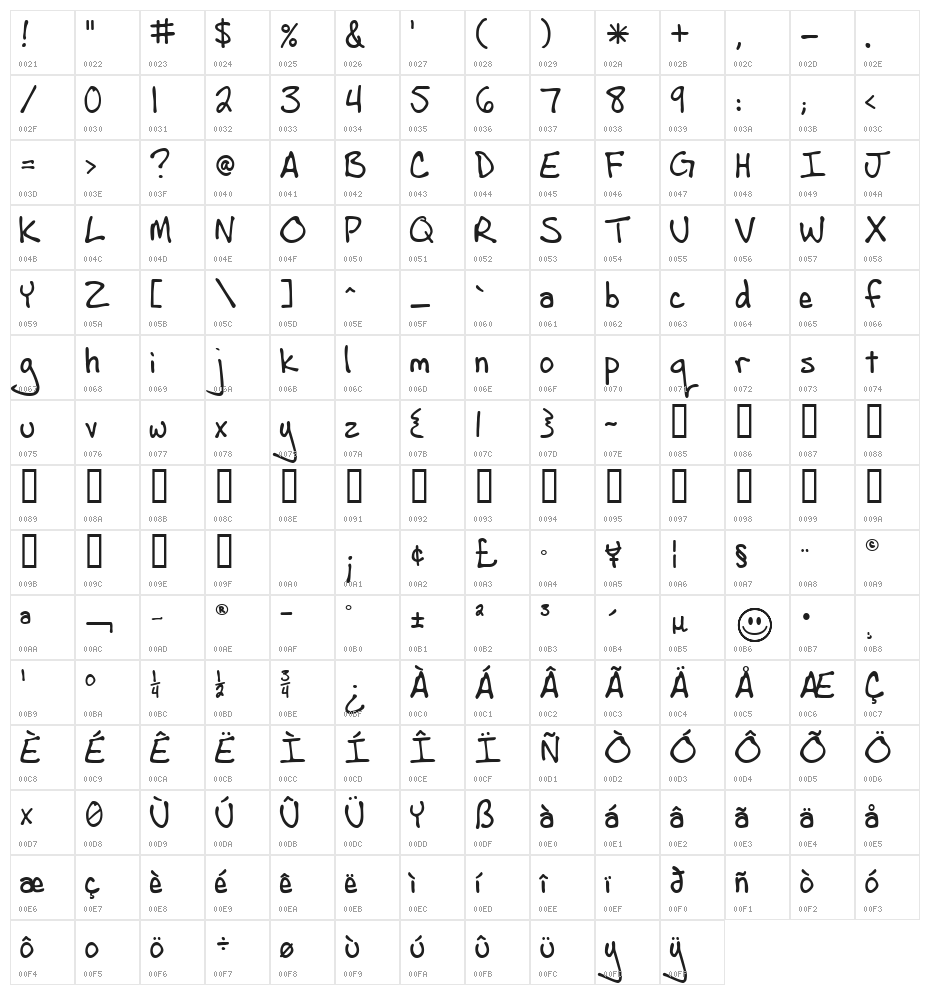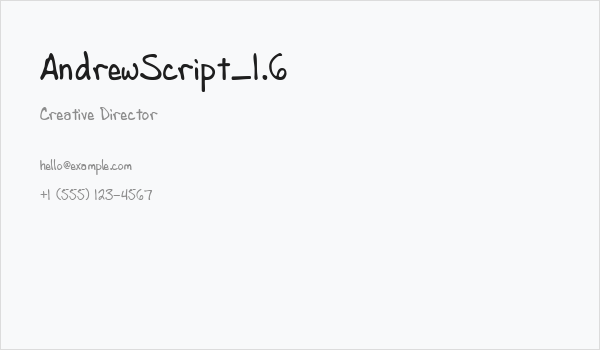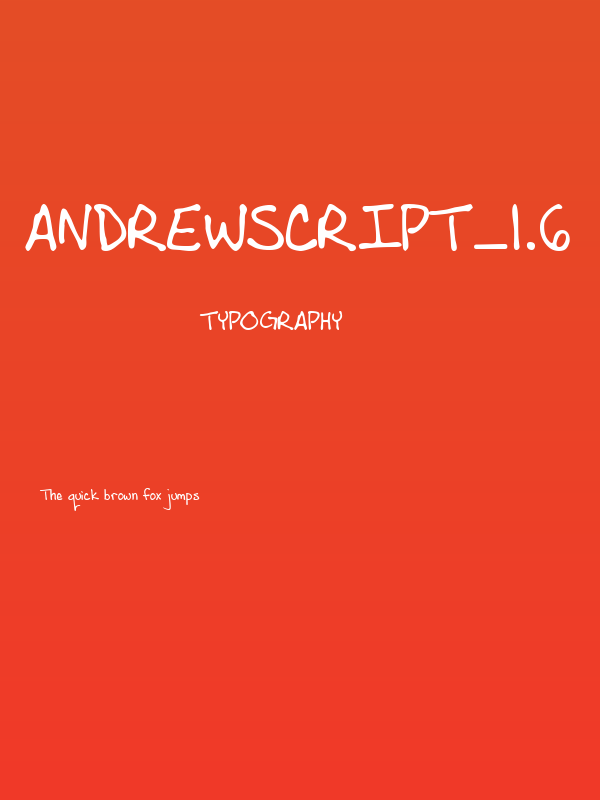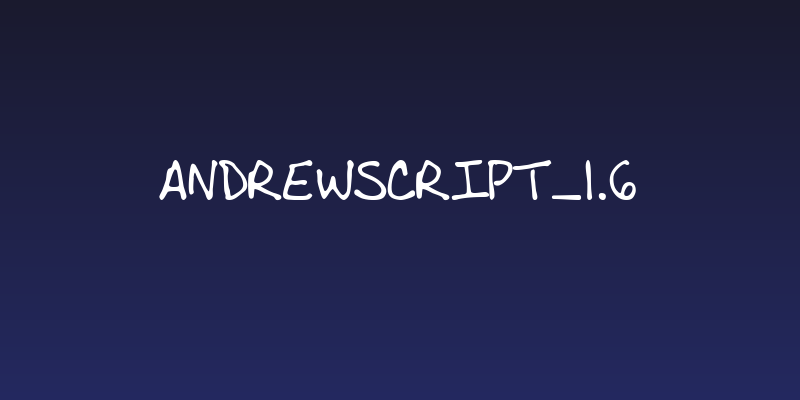
AndrewScript_1.6 Font
AndrewScript_1.6 Description
This font features a playful and casual handwritten style, characterized by its informal and organic appearance. The letters are slightly irregular, giving it a personal and approachable feel. The strokes are moderately thick, providing a bold presence while maintaining a friendly aesthetic. The uppercase and lowercase letters are well-balanced, with a consistent flow that mimics natural handwriting. The numbers and special characters are crafted with the same casual flair, ensuring a cohesive look across all elements.
| Overall Style | Casual |
| Use Case | Logos, Invitations, Social Media Graphics |
| Proposed Projects | Ideal for personal branding, greeting cards, invitations, and informal social media graphics. |